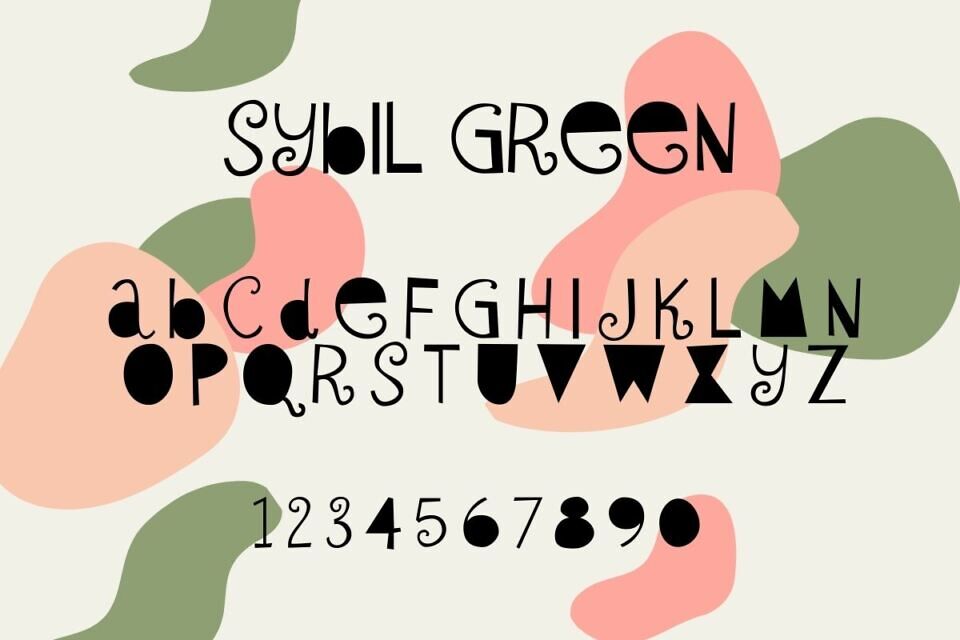
Sybil Green Font
Sybil Green is a psychedelic display typeface with unique letterforms and filled counters. Allow its vibrant hallucinogenic personality to spark joy and pleasure into your message.